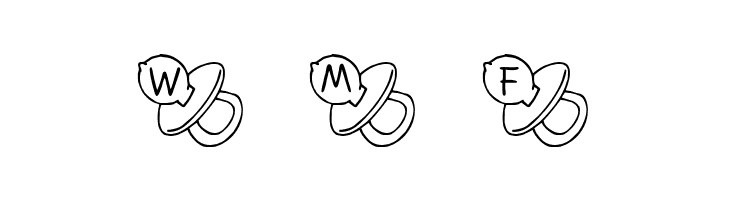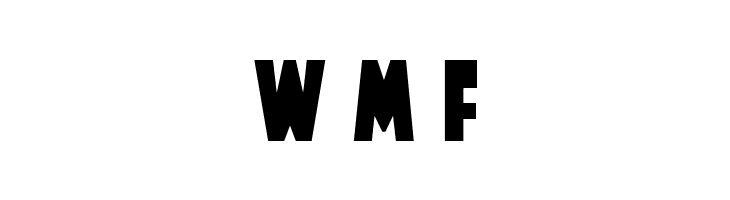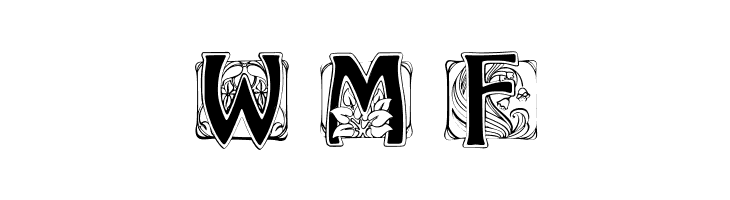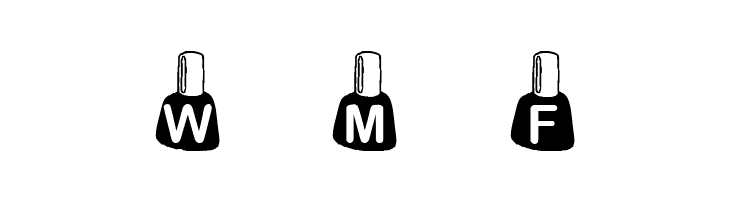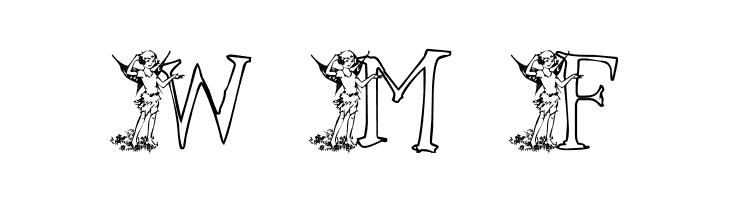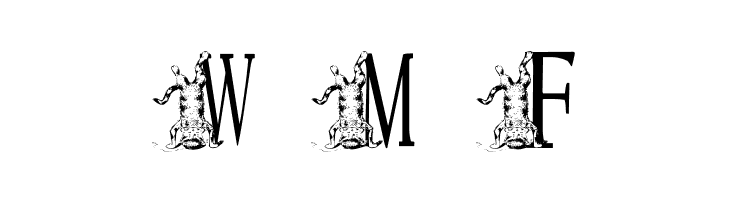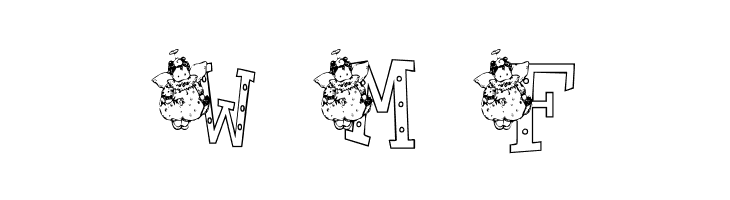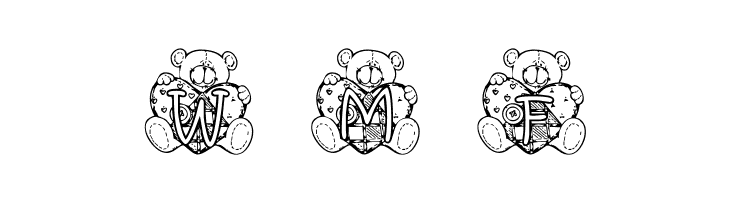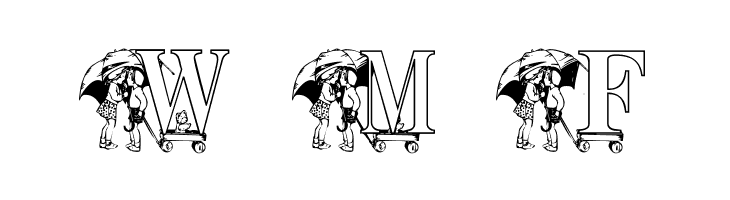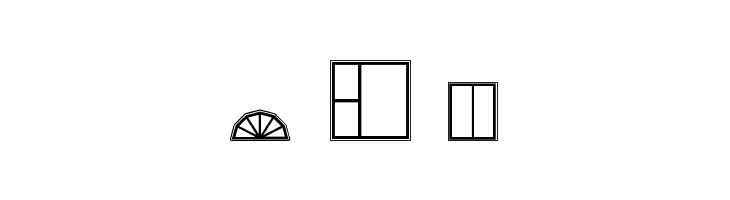
A playful font featuring letters inside pacifier shapes, ideal for children's themes.
A bold, impactful font with thick, uniform strokes and tight spacing.
An ornate, decorative font with floral-themed boxed uppercase letters.
A decorative font with uppercase letters in nail polish bottle shapes.
A decorative font with intricate fairy-themed embellishments on each letter.
An ornate, decorative font with floral embellishments on each character.
A whimsical, decorative font with cartoon-like characters integrated into each letter.
A whimsical font with letters inside teddy bear designs, perfect for playful projects.
A whimsical, decorative font with letters featuring umbrellas and characters.
A decorative dingbat font showcasing various window designs.